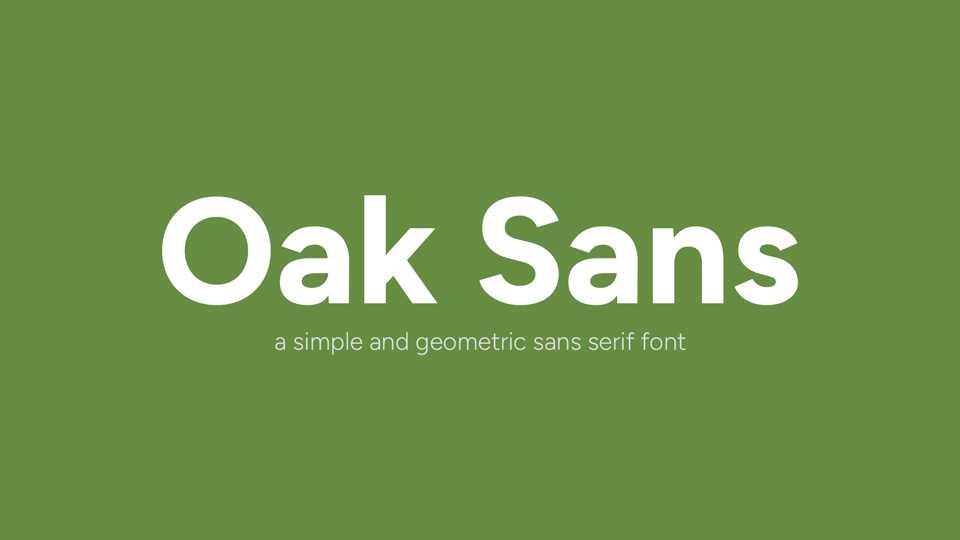
Download Oak Sans font, a simple variable sans serif typeface based on Figtree font by Erik Kennedy. Oak Sans is a versatile mix of geometric and neo-grotesk design which offers the power of a display weights at large sizes and ease of legibility in smaller.